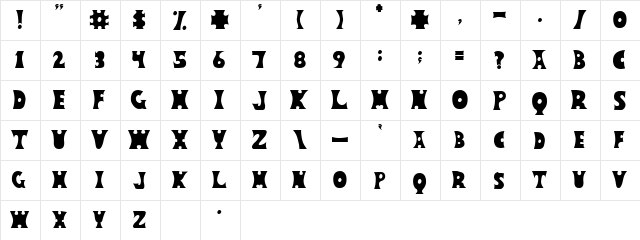
Circos Regular Font Preview
Circos Regular
Design Context for Circos Typeface
Circos is a composed and adaptable typeface that performs quietly and consistently across a wide range of design contexts.